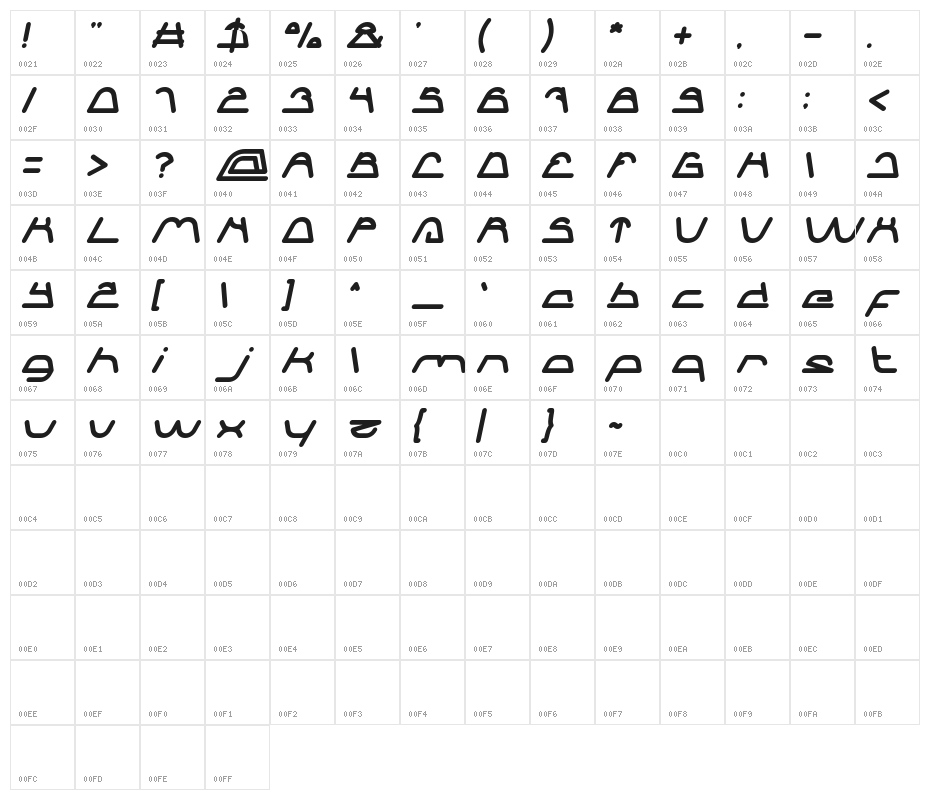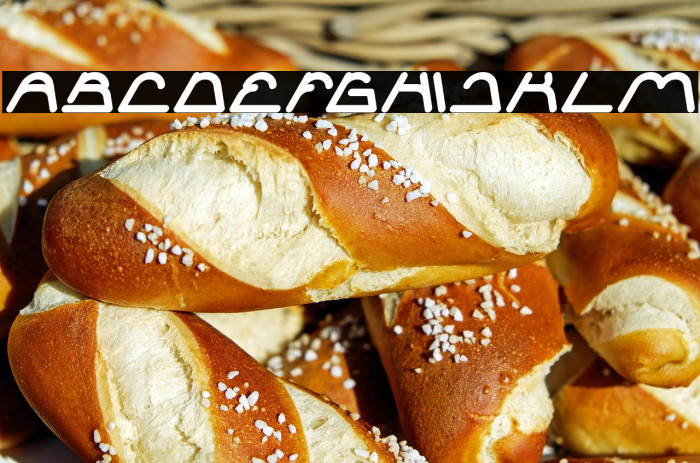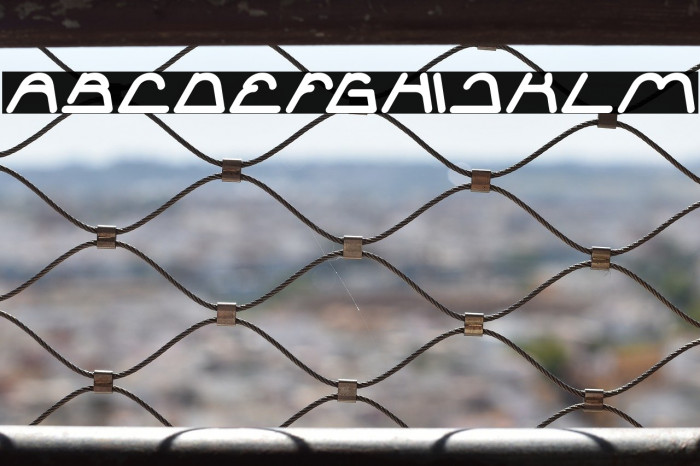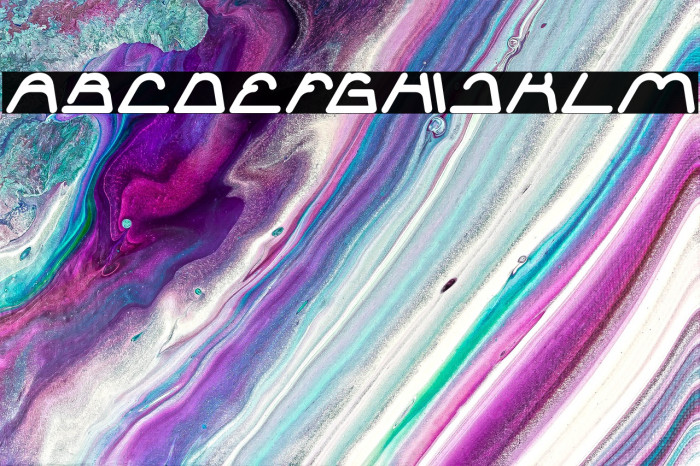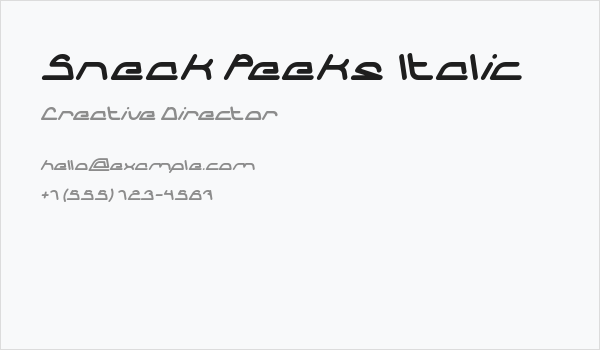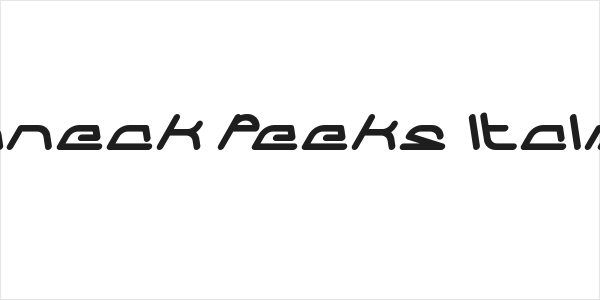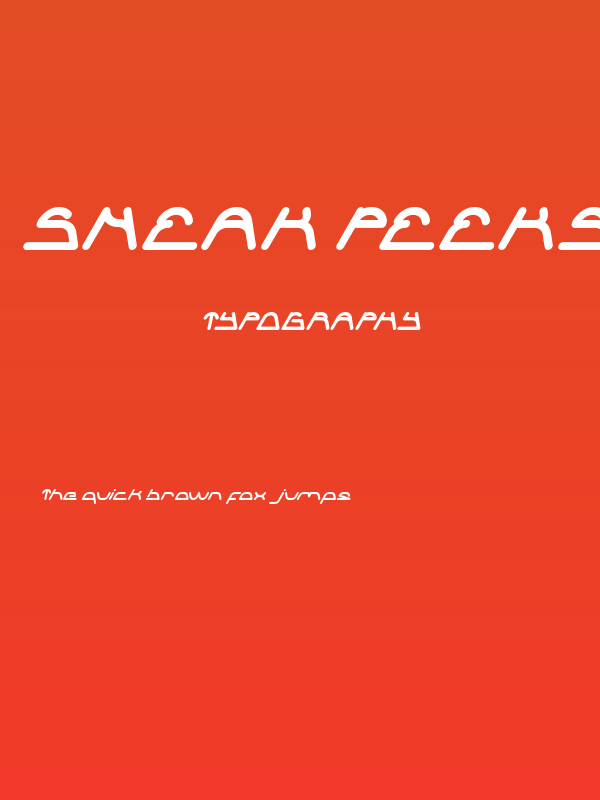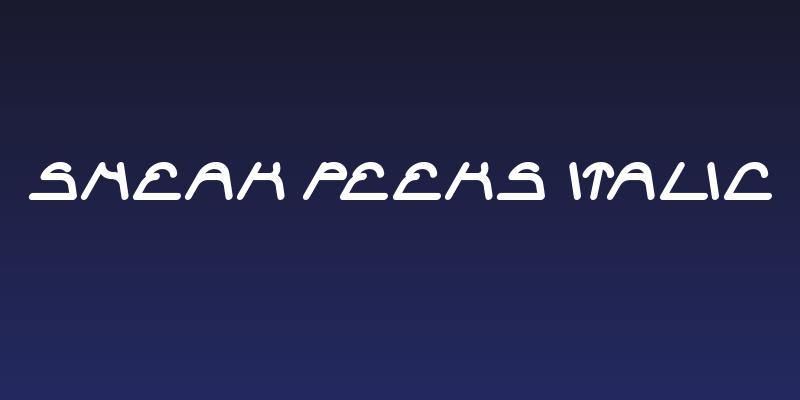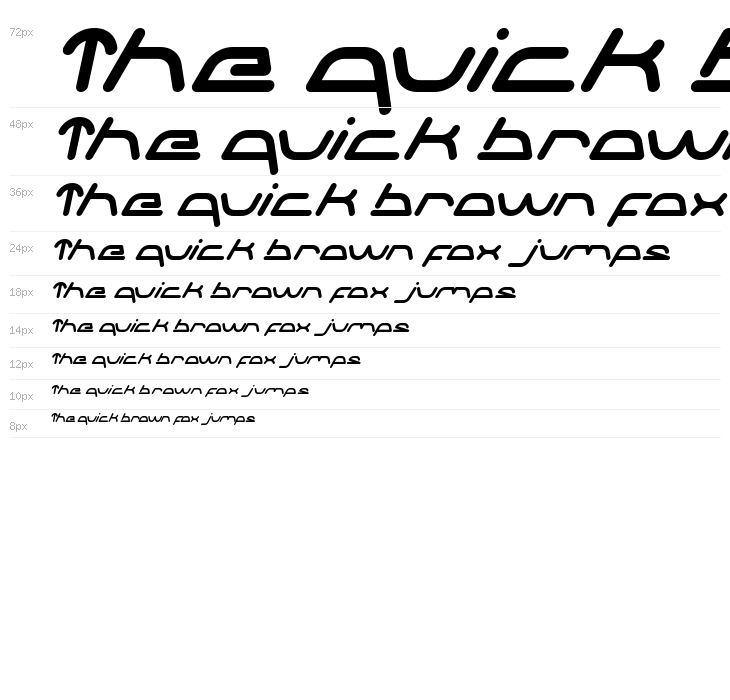
Sneak Peeks Italic Font
Sneak Peeks Italic Description
This font features a modern, sleek design with a futuristic touch. The characters are slightly italicized, giving them a dynamic and forward-moving appearance. Each letter is crafted with smooth, continuous lines that create a sense of fluidity and motion. The uppercase and lowercase letters maintain a consistent style, with rounded edges and a uniform stroke width that adds to the font's cohesive look. The numbers and special characters follow the same design principles, ensuring a harmonious overall appearance. This font is ideal for projects that require a contemporary and innovative feel.
| Overall Style | Futuristic, Sleek |
| Use Case | Logos, Headlines, Branding |
| Proposed Projects | Ideal for technology branding, sci-fi themed designs, modern advertising, and innovative product packaging. |